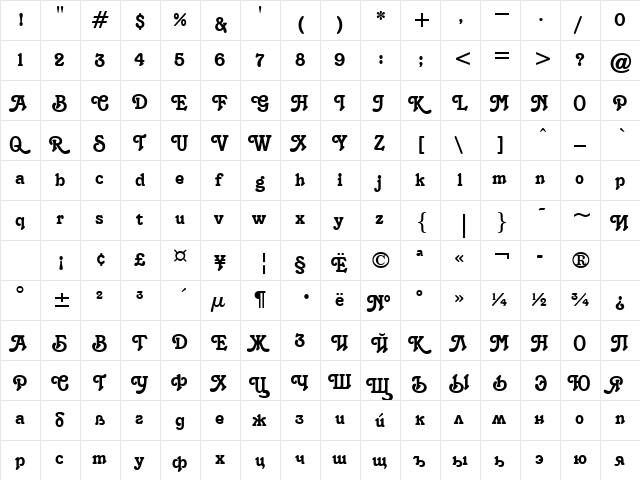
TangoDi Regular
Design Context for TangoDi Typeface
TangoDi is a composed and adaptable typeface that performs quietly and consistently across a wide range of design contexts.